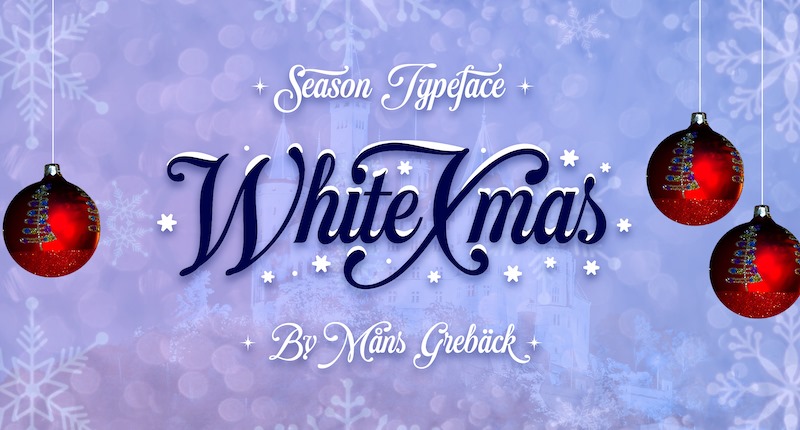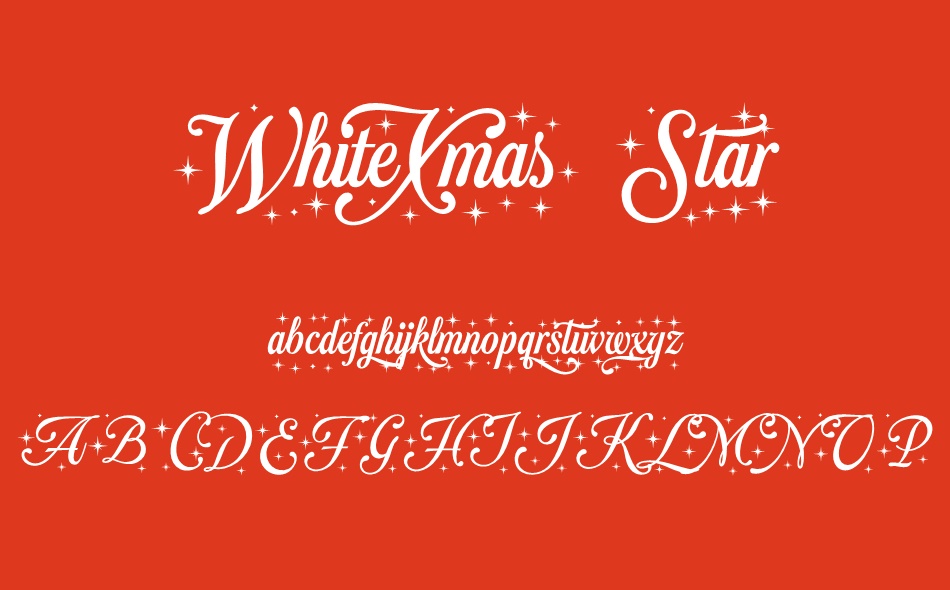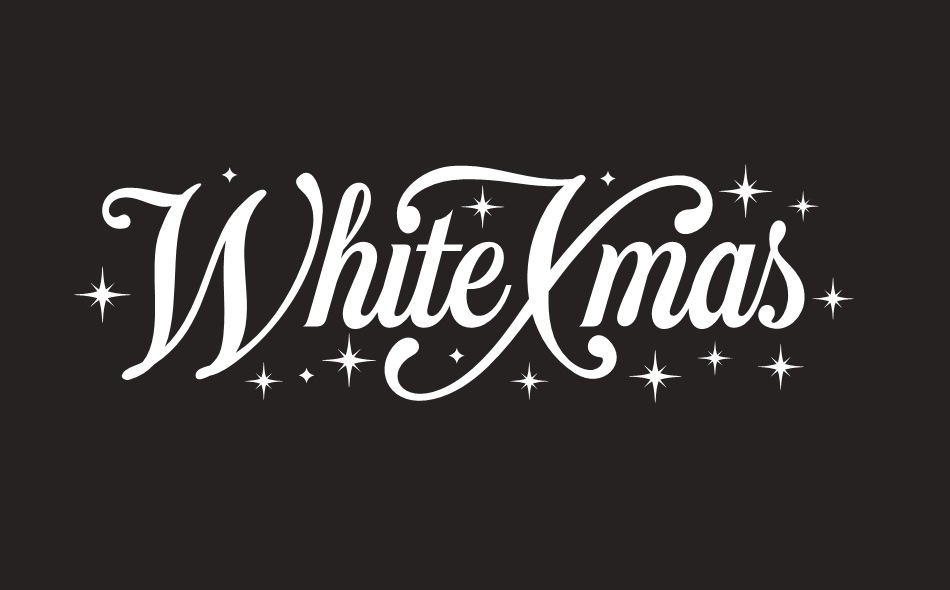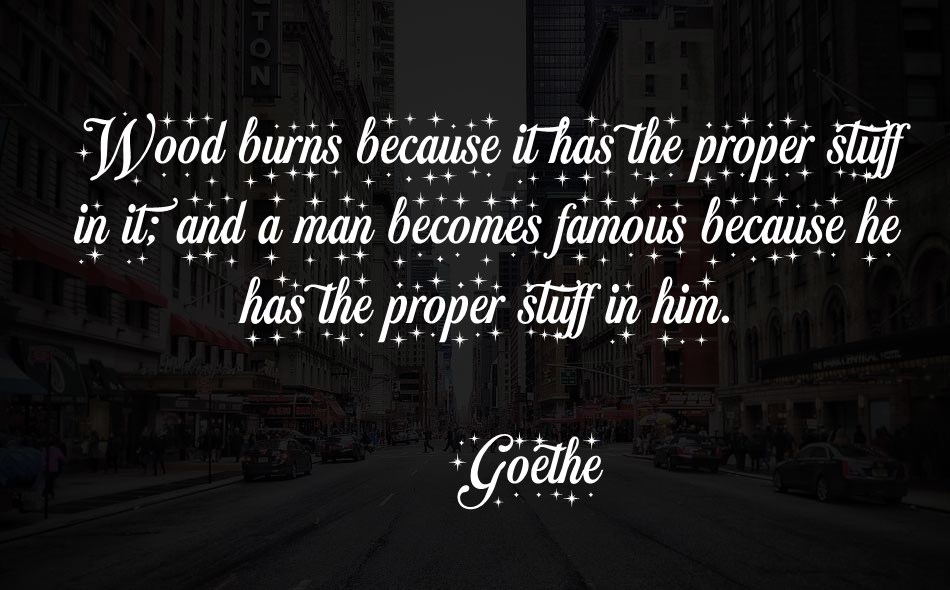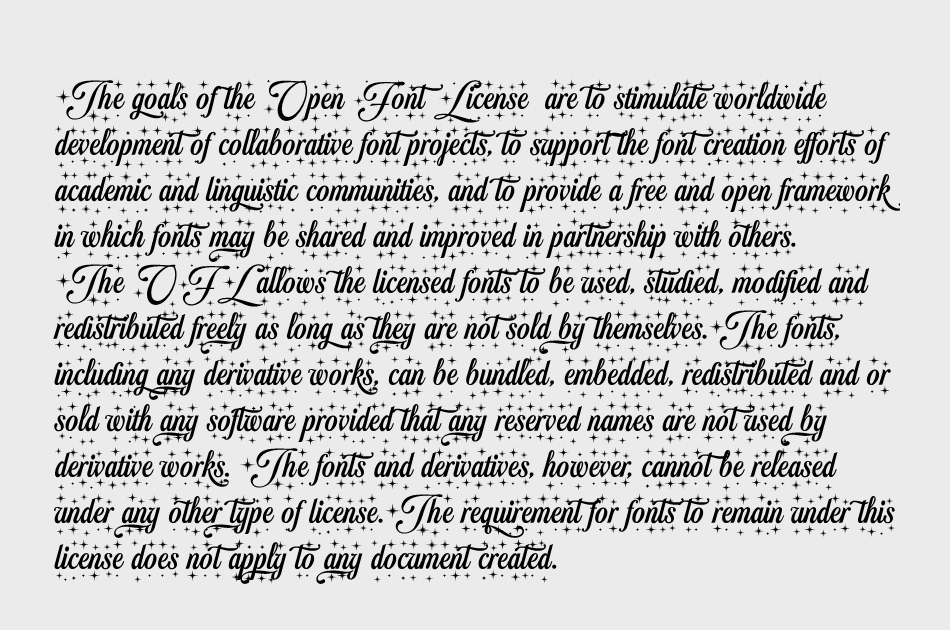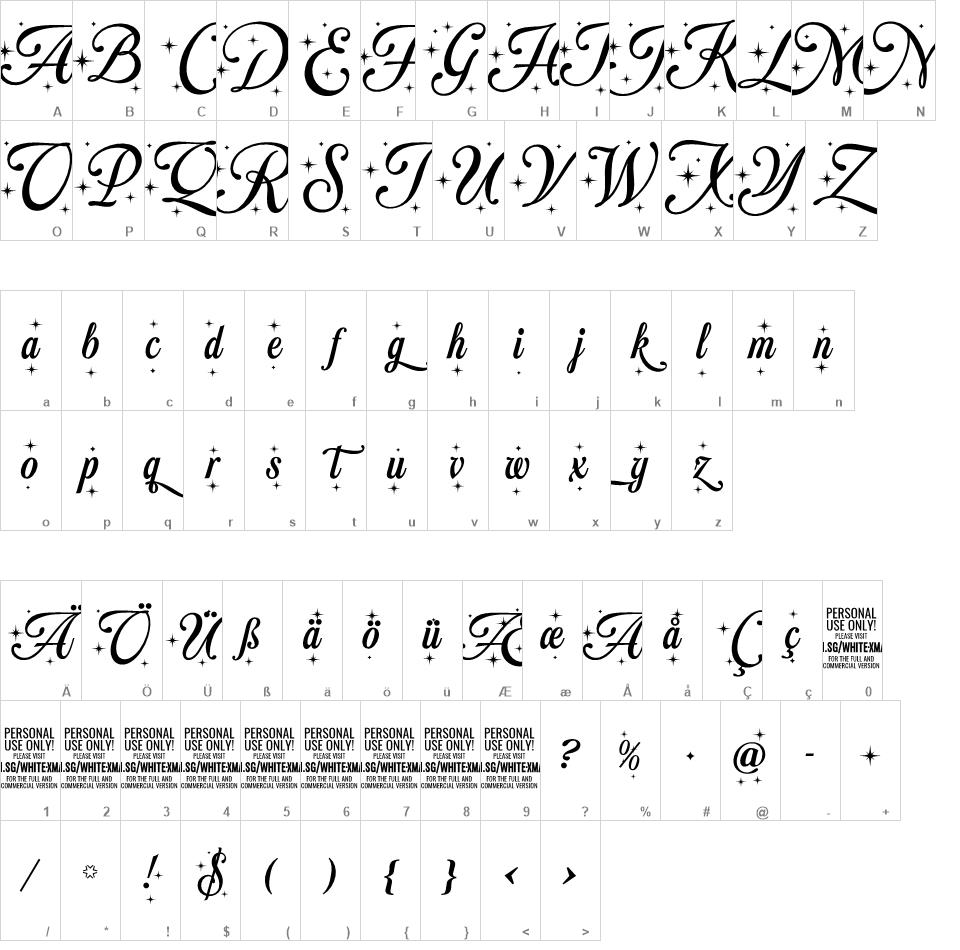
White Xmas font
Use symbols * + # for stars and snowflakes.
Use underscore _ anywhere in a word to make a swash.
Example: Sea_son
Use multiple underscores for different swashes.
Example: Christ_______mas
White Xmas is a beautiful Christmas script typeface.
This seasonal family is the ultimate set of decorative Christmas fonts, consisting of no less than 15 styles: Star, Snowflake, Plain, Clean, Swash, Background, and more.
Use White Xmas as-is for your New Year's headlines or winter products, or as a layered color font to make the snow and stars shine in a brilliant white. The vast selection of styles makes for infinite decorative possibilities.
Use symbols * + # for stars and snowflakes.
Use underscore _ anywhere in a word to make a swash.
Example: Sea_son
Use multiple underscores for different swashes.
Example: Christ_______mas
Also includes a Color Font, for Photoshop and Illustrator!
The two variations are colored in Red and Blue, both decorated with white snow.
The font is built with advanced OpenType functionality and has a guaranteed top-notch quality, containing stylistic and contextual alternates, ligatures and more features; all to give you full control and customizability.
It has extensive lingual support, covering all Latin-based languages, from North Europe to South Africa, from America to South-East Asia.
It contains all characters and symbols you'll ever need, including all punctuation and numbers.